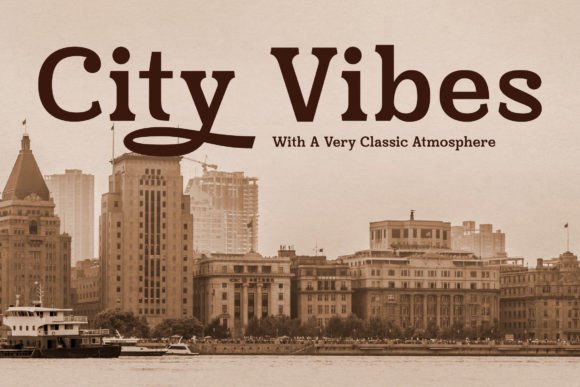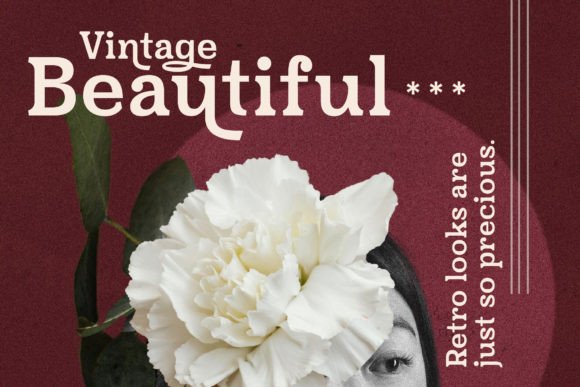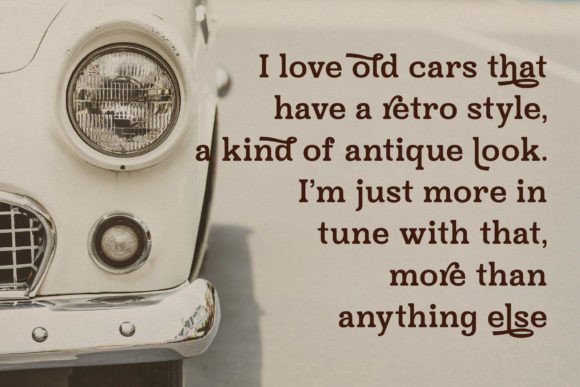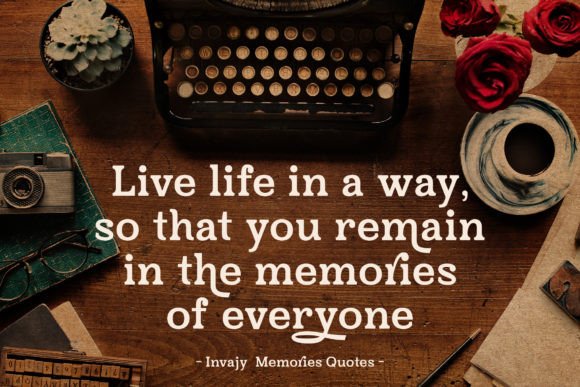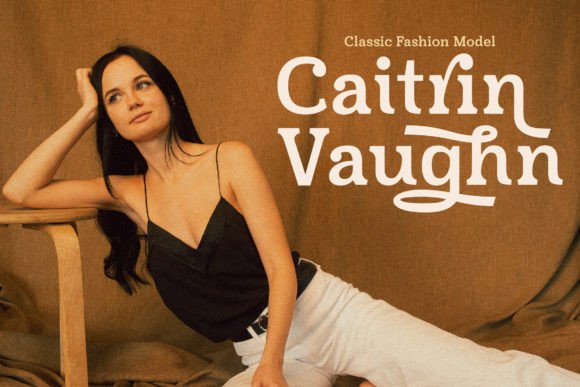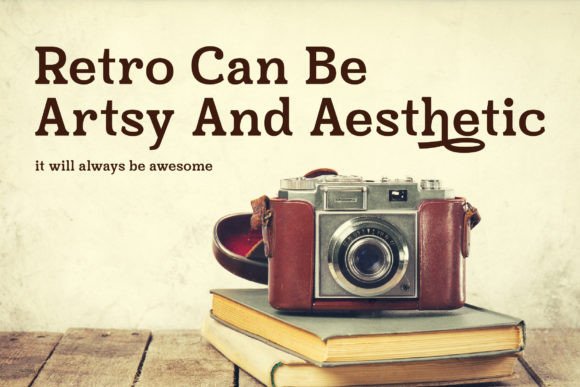
Dhrifted Font: Elevate Your Designs with Elegance and Sophistication
In the world of typography, a font can make or break a design. For designers and crafters seeking to add a touch of luxury and sophistication to their work, the Dhrifted Font is an exceptional choice. This serif modern and classic typeface boasts a unique style and modern look, making it perfect for a wide range of applications, from elegant logos and book or movie titles to fashion brands, magazines, and more.
The Essence of Dhrifted Font
Dhrifted Font is a thoughtfully crafted typeface that seamlessly blends traditional serif elements with a modern aesthetic. Its distinctive character is marked by clean lines, precise letterforms, and a balanced structure, which collectively contribute to its classic yet contemporary feel. This font is not just a tool for communication; it’s an element of design that can elevate the visual impact of any project.
One of the standout features of the Dhrifted Font is its versatility. Its elegant and luxurious appearance makes it suitable for a variety of design projects, including:
• Elegant & Luxury Logos: Create memorable and sophisticated logos that stand out with the Dhrifted Font.
• Book or Movie Title Design: Add a touch of class and glamour to your book covers or movie titles.
• Fashion Brands: Perfect for fashion brands looking for a font that exudes style and luxury.
• Magazines: Elevate your magazine’s typography with a font that is both readable and stylish.
• Clothes: Ideal for clothing brands and designers who want to add an elegant touch to their product labels or advertising.
• Lettering and Quotes: Use Dhrifted Font to create stunning lettering pieces or to highlight inspirational quotes.
Why Choose Dhrifted Font?
Choosing the right font for your project can be daunting, but here are a few reasons why Dhrifted Font stands out:
• Unique Style: Dhrifted Font offers a unique style that is not easily found in other typefaces, making your designs instantly recognizable.
• Modern Look: Despite its classic roots, Dhrifted Font has a distinctly modern look that will appeal to designers looking for something current and trendy.
• Elegance and Sophistication: The font exudes elegance and sophistication, making it perfect for projects that require a high-end feel.
• Readability: The clear and precise letterforms ensure excellent readability, making it suitable for both headings and body text.
Tips for Using Dhrifted Font
To get the most out of the Dhrifted Font, consider the following tips:
• Pair with Complementary Fonts: While Dhrifted Font is versatile on its own, pairing it with complementary fonts can add depth and interest to your designs.
• Experiment with Weights: If available, experiment with different weights of the Dhrifted Font to create visual hierarchy in your designs.
• Consider Your Audience: Ensure that the elegance and sophistication of the Dhrifted Font align with the message and audience of your project.
Dhrifted Font is a powerful tool for designers and crafters looking to infuse their projects with elegance, sophistication, and a modern edge. Its unique style, versatility, and readability make it an excellent choice for a wide range of applications. Whether you’re working on a luxury brand, a fashion magazine, or a book title, Dhrifted Font is sure to elevate your design to new heights. Explore the possibilities of Dhrifted Font today and discover how it can transform your creative projects.